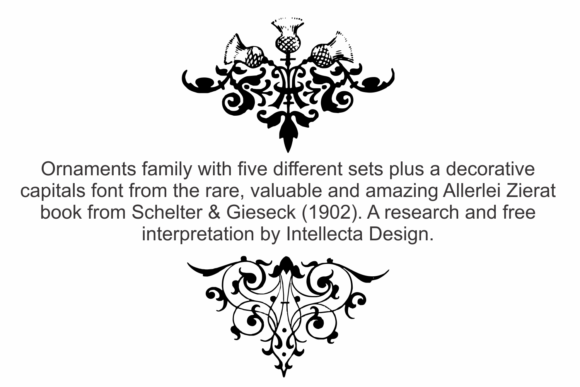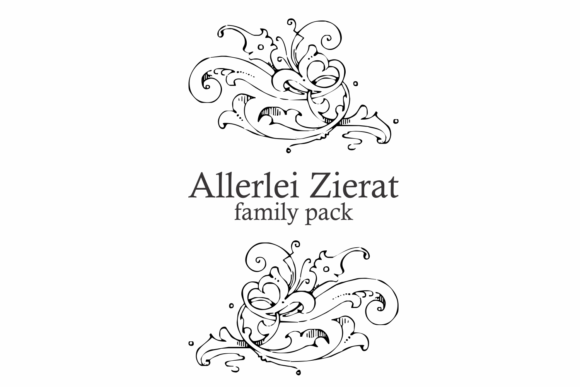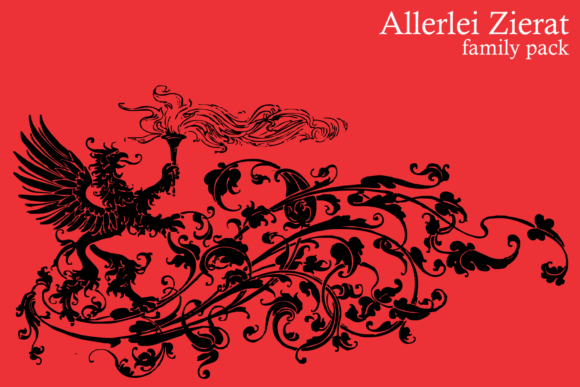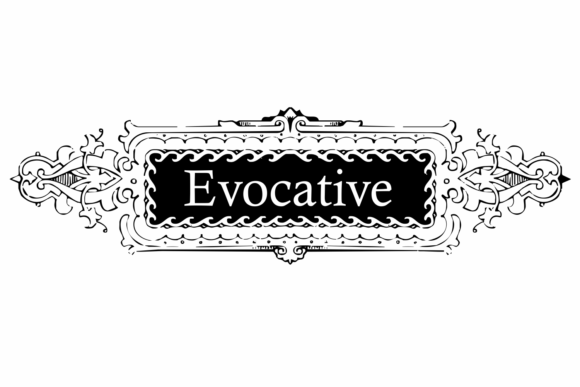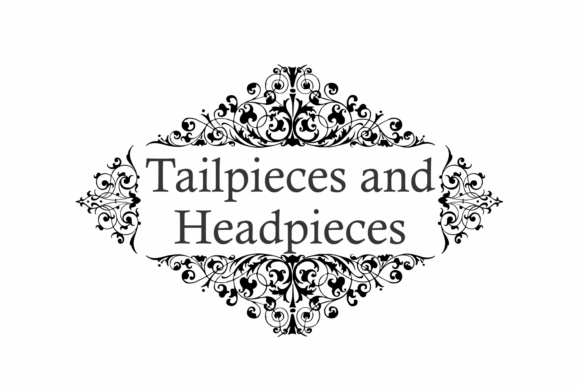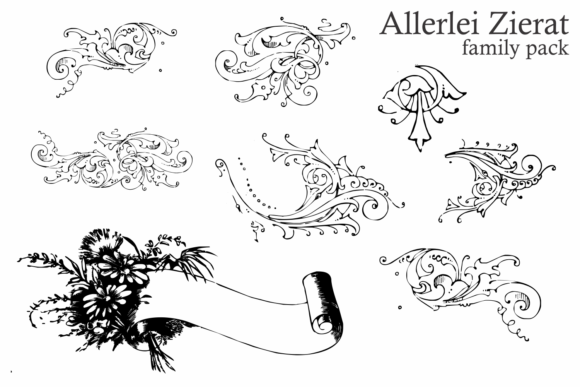
Discover the Amazing Allerlei Zierat Family Font: A Treasure Trove of Ornaments and Decorations
Are you a designer, crafter, or typography enthusiast looking for a unique and versatile font to elevate your creative projects? Look no further than the Allerlei Zierat Family Font, a stunning collection of ornaments and decorations inspired by the rare and valuable Allerlei Zierat book from Schelter & Gieseck (1902). In this article, we’ll explore the fascinating history of this font, its features, and how it can add a touch of elegance and whimsy to your designs.
A Brief History of the Allerlei Zierat Book
The Allerlei Zierat book is an encyclopedic specimen book from the Leipzig, Germany type foundry and printing supply house J.G. Schelter & Giesecke. Published in 1902, this remarkable book showcases a vast array of decorations and ornaments for printing, including traditional, Jugendstil, and exotic motifs. The book’s title page proudly announces that the firm won the grand prize in 1900 at the Exposition Universelle in Paris, a testament to their exceptional craftsmanship and innovative designs.
The Allerlei Zierat Family Font: A Research and Free Interpretation by Intellecta Design
Intellecta Design has carefully researched and interpreted the Allerlei Zierat book, creating a comprehensive font family with five different sets, plus a decorative capitals font. This meticulous process ensures that the essence of the original book is preserved, while making it accessible to designers and crafters worldwide. The Allerlei Zierat Family Font is a treasure trove of creative possibilities, featuring:
- Five different sets of ornaments and decorations
- A decorative capitals font
- A wide range of styles, including traditional, Jugendstil, and exotic motifs
- Categories include certificates, letterheads, borders, ornaments, flowers, animals, silhouettes, menus, greeting cards, vignettes, and more
Exploring the Features of the Allerlei Zierat Family Font
The Allerlei Zierat Family Font is a versatile and engaging collection of ornaments and decorations, perfect for designers and crafters seeking to add a touch of elegance and whimsy to their projects. Some of the key features include:
Traditional and Jugendstil Motifs
The font features a range of traditional and Jugendstil motifs, including intricate borders, ornaments, and decorations. These classic designs are perfect for creating vintage-inspired projects, such as certificates, letterheads, and greeting cards.
Exotic Motifs and Floral Patterns
Add a touch of exotic flair to your designs with the font’s collection of exotic motifs and floral patterns. These intricate designs feature flowers, animals, and other natural elements, ideal for creating unique and eye-catching projects.
Animals, Silhouettes, and Humorous Vignettes
The Allerlei Zierat Family Font also includes a delightful collection of animals, silhouettes, and humorous vignettes. These playful designs are perfect for creating lighthearted and whimsical projects, such as children’s illustrations, greeting cards, and social media graphics.
Occupational Symbols, Portraits, and Classical Figures
For a more sophisticated look, the font features a range of occupational symbols, portraits, and Classical figures. These elegant designs are ideal for creating professional and luxurious projects, such as business cards, letterheads, and certificates.
Using the Allerlei Zierat Family Font in Your Designs
The Allerlei Zierat Family Font is an incredibly versatile collection of ornaments and decorations, suitable for a wide range of design applications. Here are a few ideas to get you started:
- Graphic design: Use the font to create stunning graphic designs, such as brochures, flyers, and posters.
- Illustration: Combine the font with your illustrations to add an extra layer of depth and visual interest.
- Crafting: Use the font to create beautiful handmade projects, such as cards, gift tags, and scrapbook pages.
- Digital art: Incorporate the font into your digital art, such as digital paintings and mixed media collages.
The Allerlei Zierat Family Font is a true treasure trove of ornaments and decorations, offering a wealth of creative possibilities for designers and crafters. With its rich history, stunning designs, and versatility, this font is sure to become a favorite in your collection. So why wait? Download the Allerlei Zierat Family Font today and unlock a world of creative possibilities!